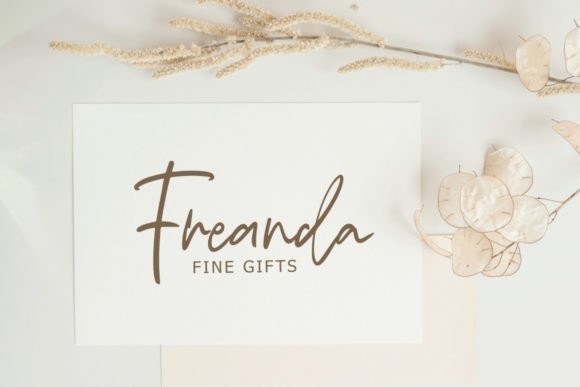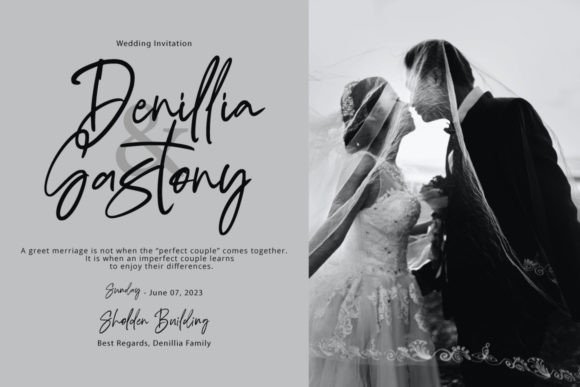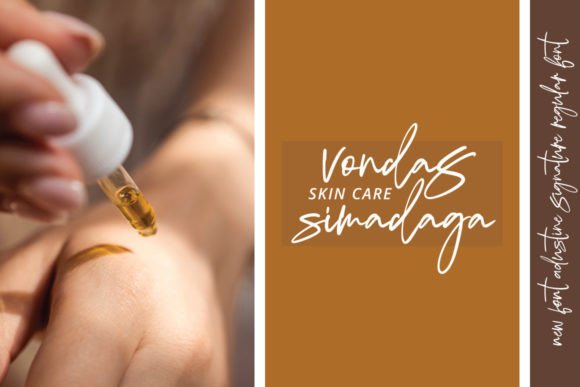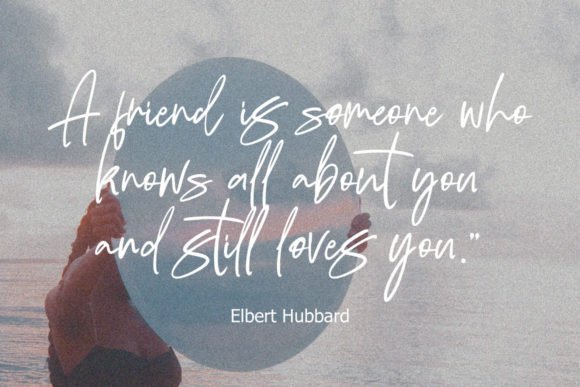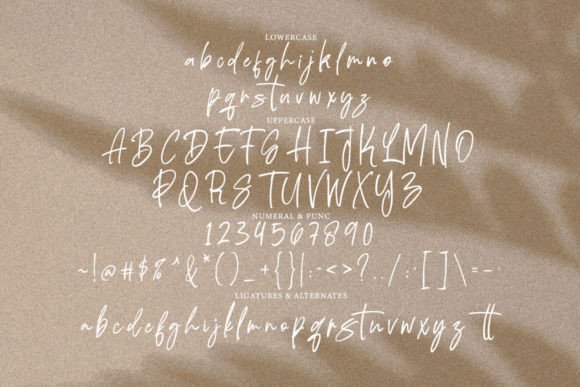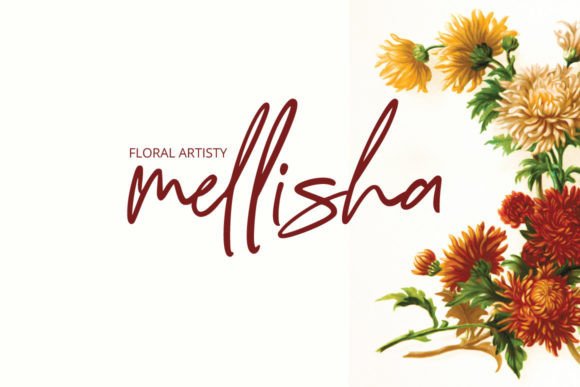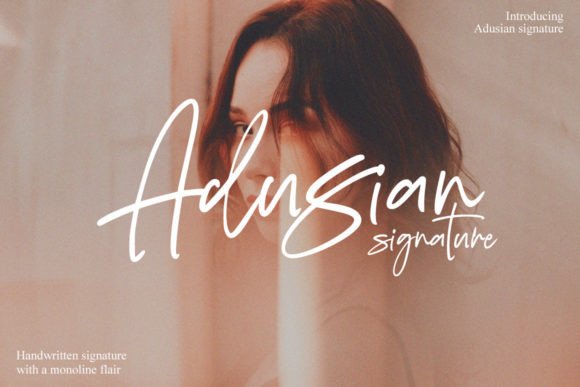
Introducing Adusian Signature Font: Elevate Your Designs with Elegance
Are you on the hunt for a font that exudes sophistication, elegance, and a touch of modern flair? Look no further than the Adusian Signature Font. This exquisite handwritten font is meticulously crafted to capture the essence of classy calligraphy while infusing it with a contemporary twist. Whether you’re a designer, crafter, or simply someone who appreciates the art of beautiful typography, Adusian Signature is poised to become your new favorite.
The Perfect Blend of Classic and Modern
Adusian Signature strikes the perfect balance between traditional calligraphic influences and modern design sensibilities. Its elegant strokes and fluid connections evoke a sense of nostalgia, reminiscent of handwritten calligraphy from a bygone era. Yet, its clean lines, subtle nuances, and carefully considered letterforms ensure it feels fresh and relevant. This harmonious blend makes Adusian Signature an incredibly versatile font, suitable for a wide range of projects and applications.
Unleash Your Creativity with Adusian Signature
With Adusian Signature, the possibilities are endless. Imagine using it to add a touch of sophistication to your branding, packaging, or advertising materials. Envision it elevating your invitations, greeting cards, or stationery to new heights of elegance. This font’s exceptional legibility and aesthetic appeal make it an excellent choice for both digital and print projects.
What Makes Adusian Signature Stand Out?
- Exquisite Handwritten Design: Each letterform is carefully crafted to ensure a natural, handwritten feel that resonates with elegance and refinement.
- Classy Calligraphic Influences: Adusian Signature pays homage to traditional calligraphy, offering a sophisticated and timeless look.
- Contemporary and Fresh: Despite its classic roots, this font boasts a modern sensibility that ensures your designs feel current and engaging.
- Versatility: From luxury branding to DIY crafts, Adusian Signature’s adaptability makes it an invaluable addition to any designer’s toolkit.
- Exceptional Legibility: Its clear and flowing design ensures that your message is conveyed with clarity and style, across various mediums.
- Branding and Logo Design: Use Adusian Signature to create a memorable logo or to develop a cohesive brand identity that speaks to sophistication and elegance.
- Stationery and Invitations: Add a personal touch to your stationery, invitations, or greeting cards with this beautiful font.
- Digital Content: Elevate your website, social media graphics, or digital advertisements with the refined look of Adusian Signature.
- Crafting and DIY Projects: Whether you’re creating handmade cards, scrapbooking, or working on other craft projects, Adusian Signature can add a professional and stylish touch.
Adusian Signature Font is more than just a typeface; it’s a design statement. Its unique blend of classic calligraphy and modern flair makes it an exceptional tool for anyone looking to infuse their projects with elegance and sophistication. Whether you’re a professional designer or a crafting enthusiast, Adusian Signature has the potential to transform your work, making it stand out in a crowded design landscape. So why wait? Fall in love with Adusian Signature and take your designs to the highest levels of creativity and refinement.